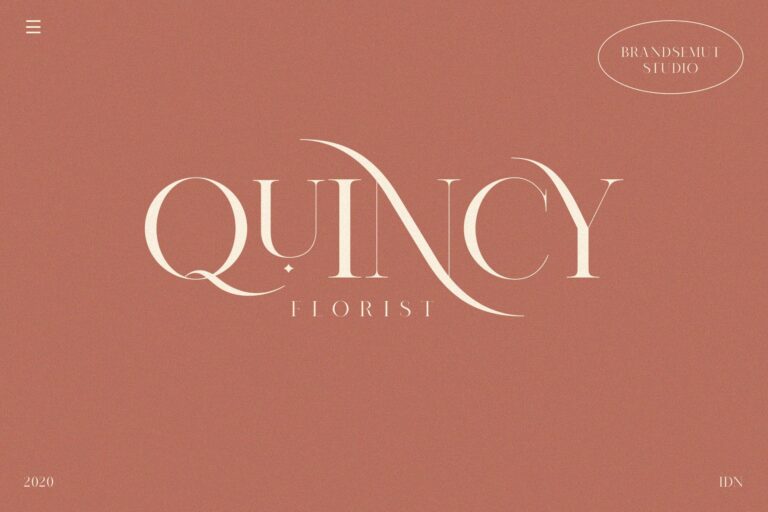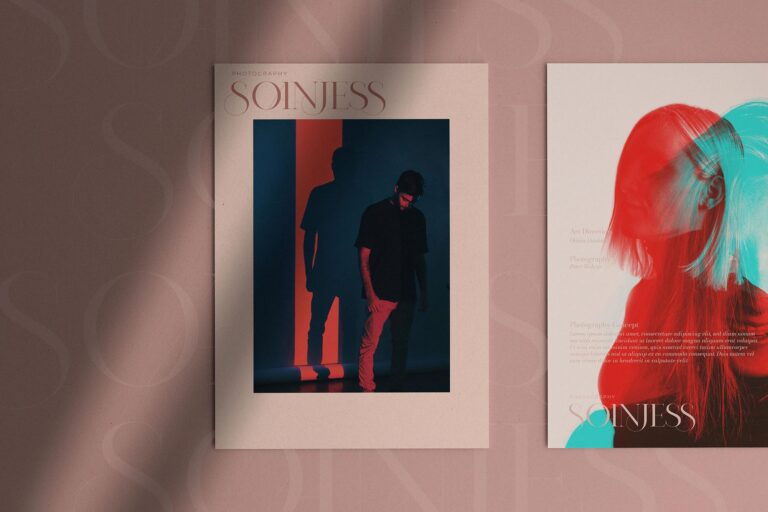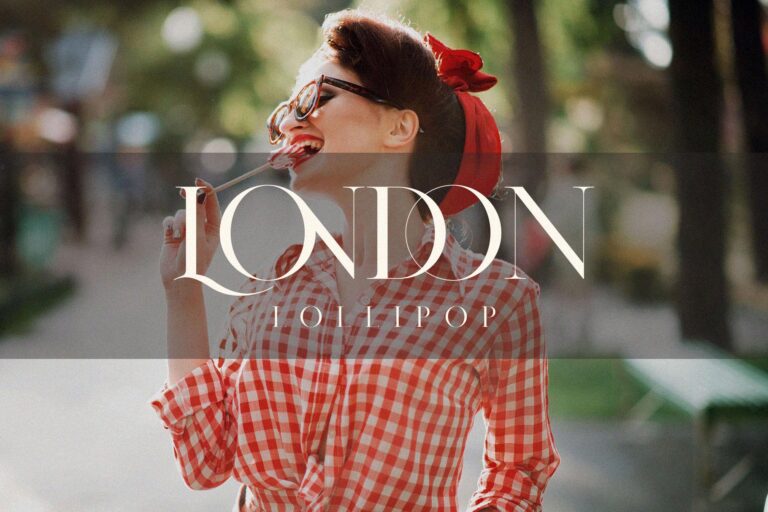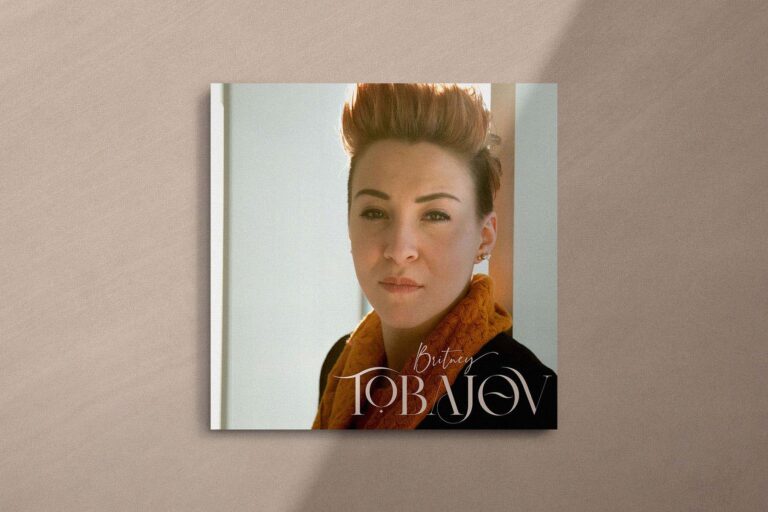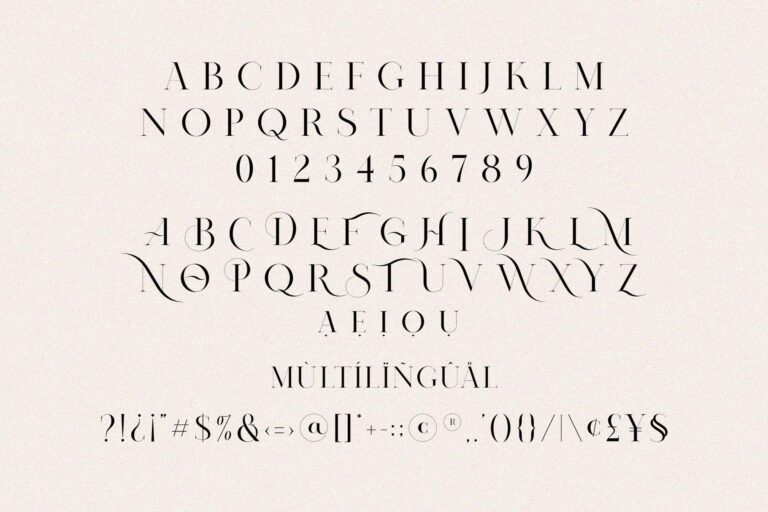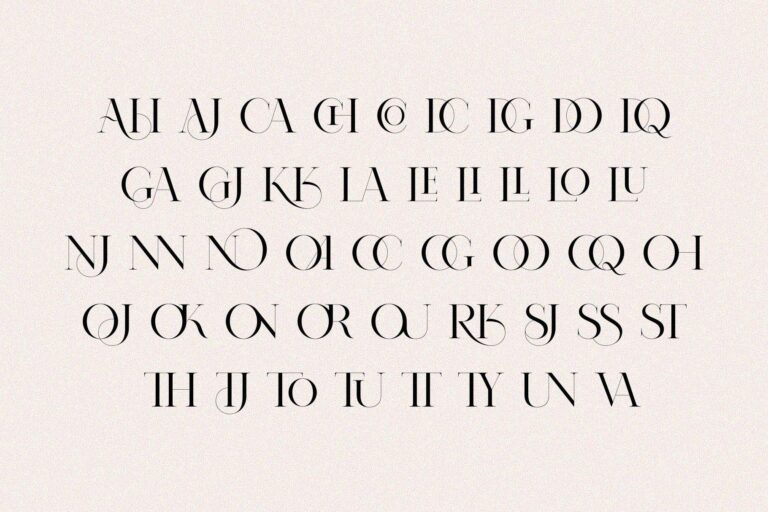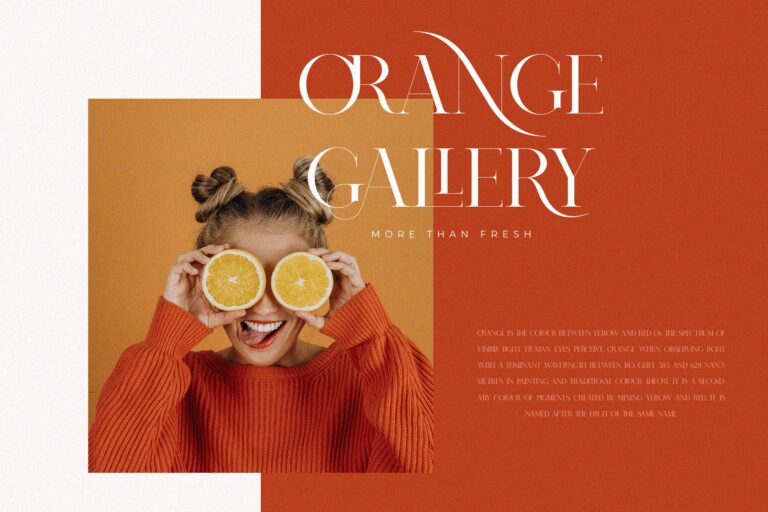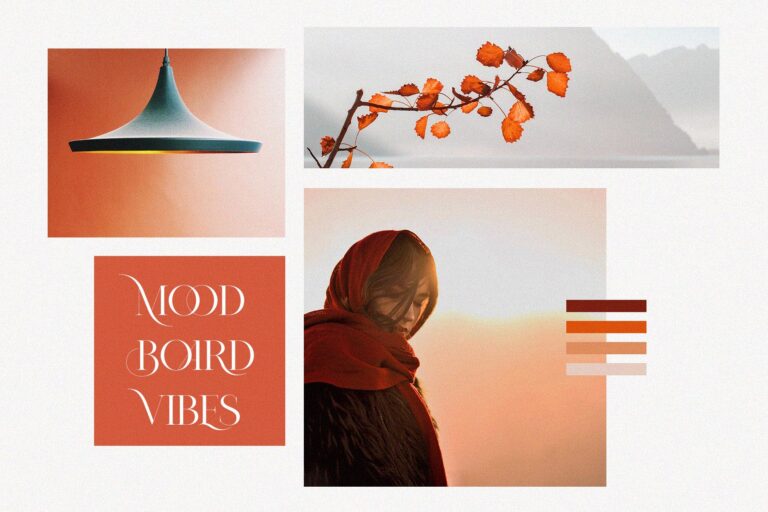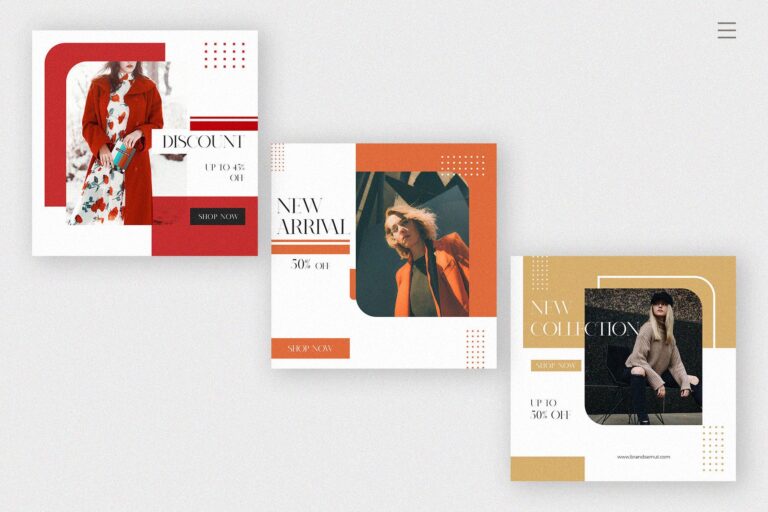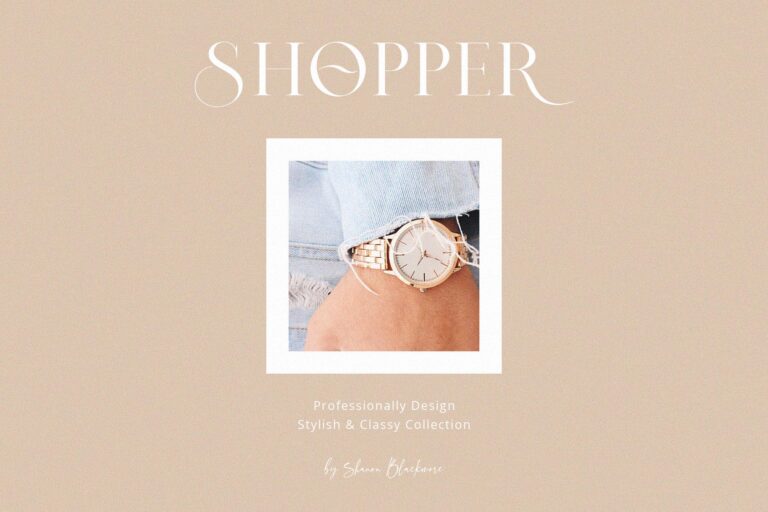
NOMARK || Ligature Typeface
Introducing the new NOMARK A Ligature Serif!!! Nomark is a elegant and classy serif typeface – This font is both modern and nostalgic and works great for logos, already matched up and ready to be used together for your next design! For those of you who are needing a touch of elegant, stylish, classy, chic and modernity for your designs, this font was created for you!
Nomark was built with OpenType features and includes 44 ligatures, alternates, numbers, punctuation, and it also supports other languages.